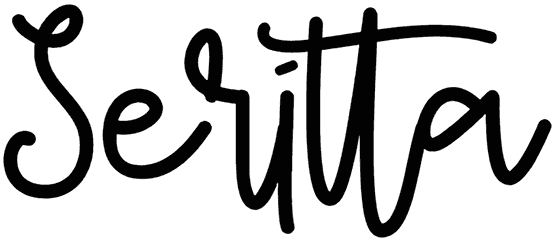
Seritta Font
If you’re looking for a different item than handwritten fonts and want to create a unique design in your writing, add Seritta to your toolbox. This neon font has a childish look with irregular connections that give it a playful look.
This font is suitable for defining the image of brands that seek to attract a teenage or children’s audience and want to choose the best way to convey their message in packaging, advertisements, and short texts.